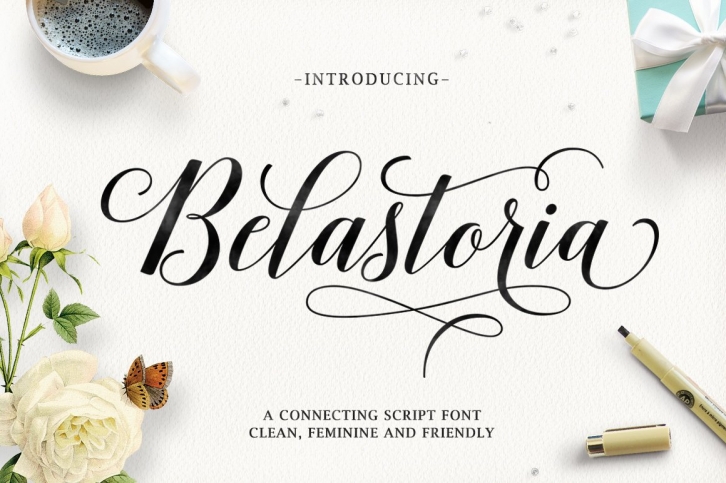
Belastoria Script FONT Download
Belastoria is a connecting script with dancing baseline, which is designed to convey elegance and style. It is clean, feminine and friendly. Works perfectly for logos, magazines, menus, books, invitations, wedding / greeting cards, packaging, labels, t-shirt etc. All designs you will have a wonderful homemade touch with Belastoria.
When it comes to the set of glyphs, have 565+ glyphs and 340+ alternate characters. offers a variety of features such as ligatures, swashes, endings, and many early forms alternately to unleash your creativity and also supported multiple languages. To make the most of the alternatives proposed, using an application that supports Open Type. such as Adobe Illustrator CS, Adobe Indesign and CorelDraw X6-X7, Microsoft Word 2010 or later versions.